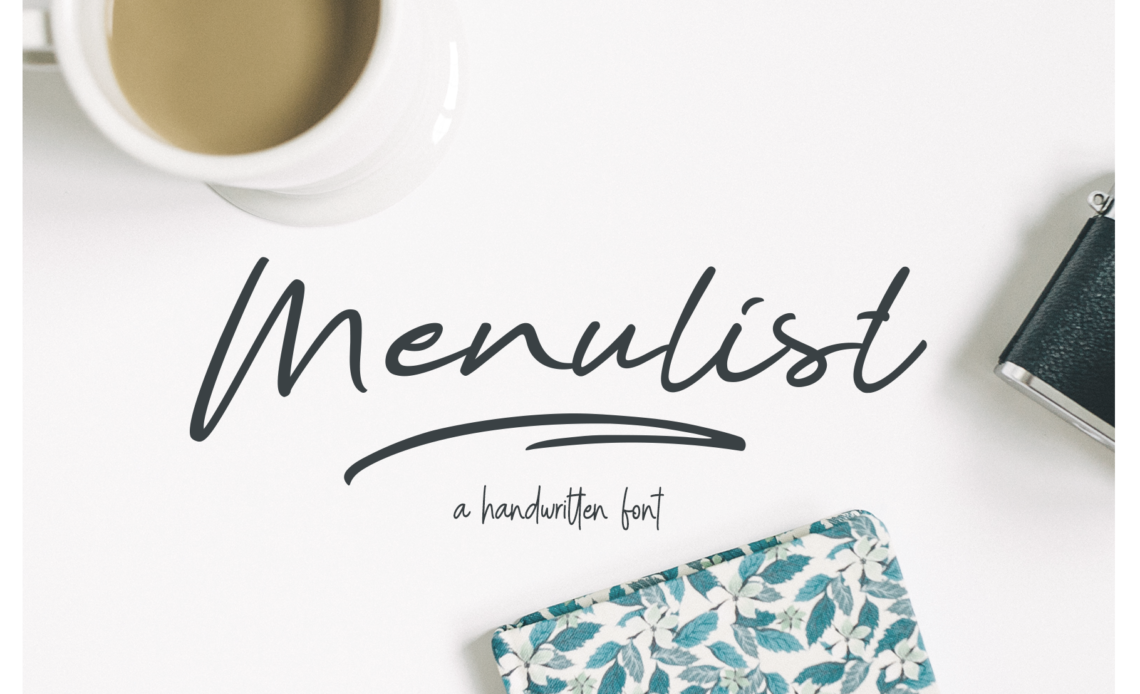
Indulge in the captivating allure of Menulist Script, a handwritten font that dances across your designs with the grace of a calligrapher's quill. Each stroke is a testament to artistry and precision, whispering a tale of creativity and passion.
Step into a world of limitless expression, where Menulist Script becomes your eloquent voice. Its minimalist charm empowers you to craft messages that transcend the ordinary, leaving an indelible mark on every project. Whether you're designing invitations that exude elegance, creating social media posts that captivate, or composing branding that exudes character, Menulist Script is your trusted companion.
This versatile font family adapts effortlessly to a myriad of styles, from the whimsical to the sophisticated. Its delicate curves and flowing lines evoke a sense of timeless beauty, while its modern edge ensures your designs remain contemporary and captivating. With Menulist Script, you're not merely purchasing a font; you're acquiring an artistic masterpiece that will elevate your designs to new heights of distinction.